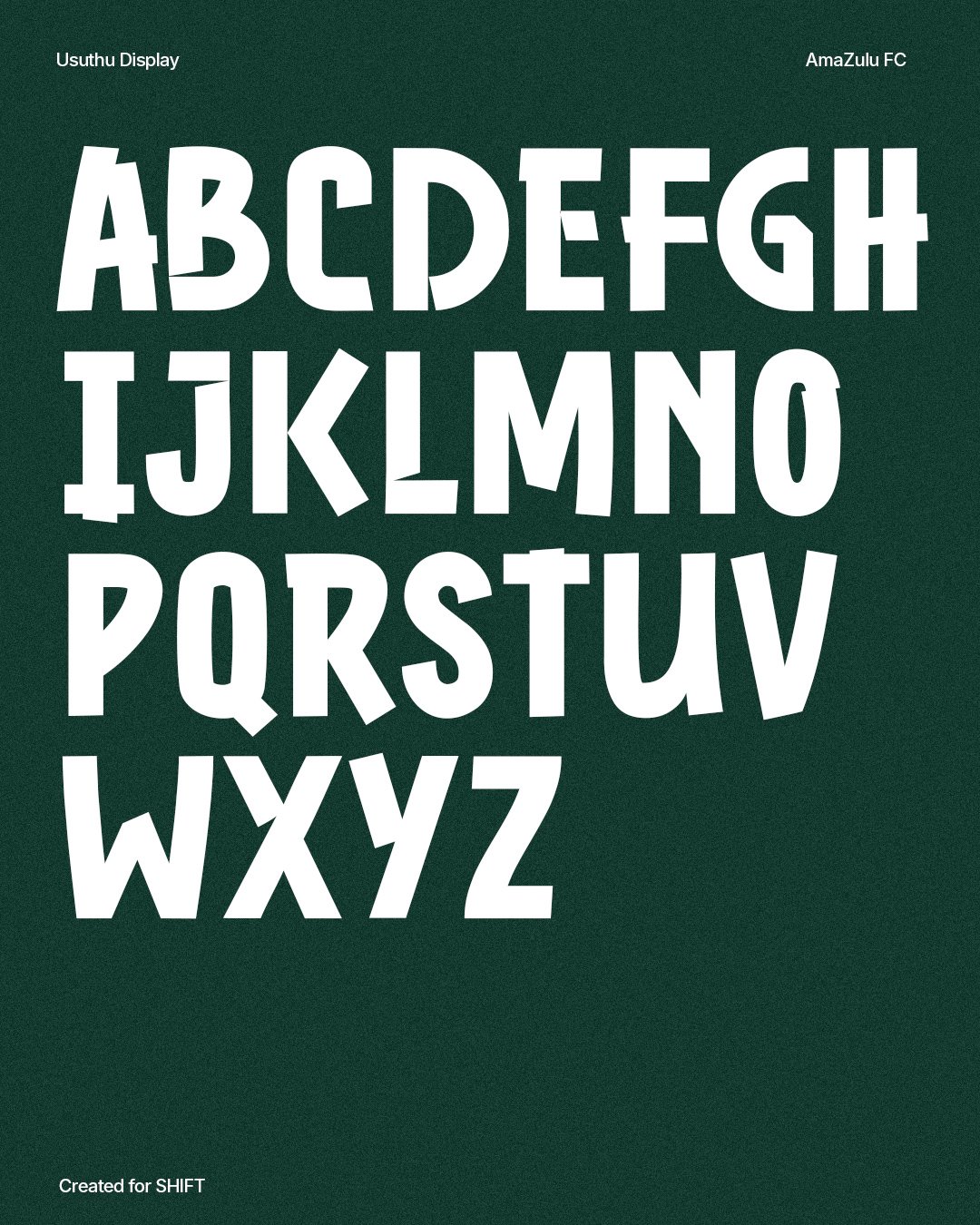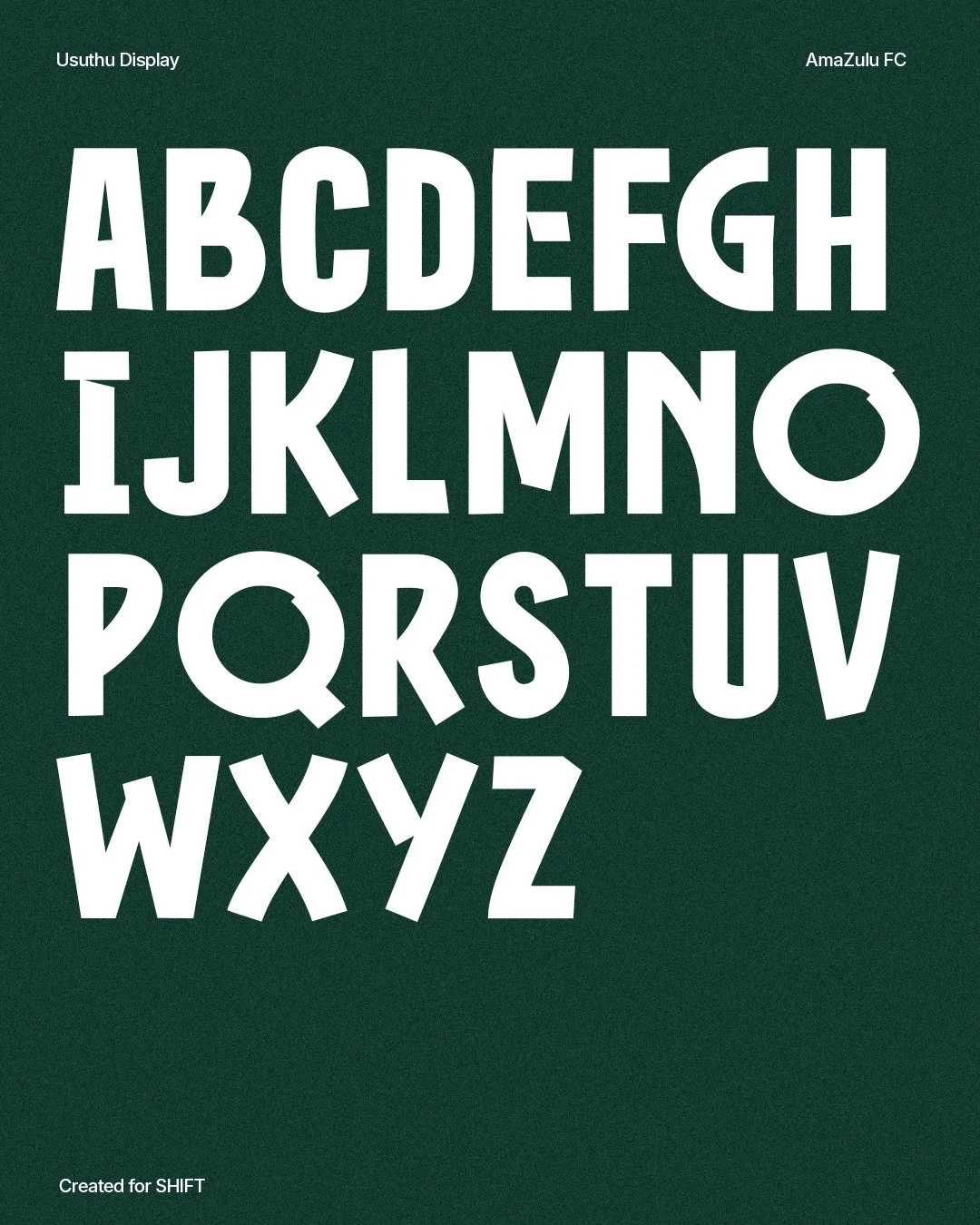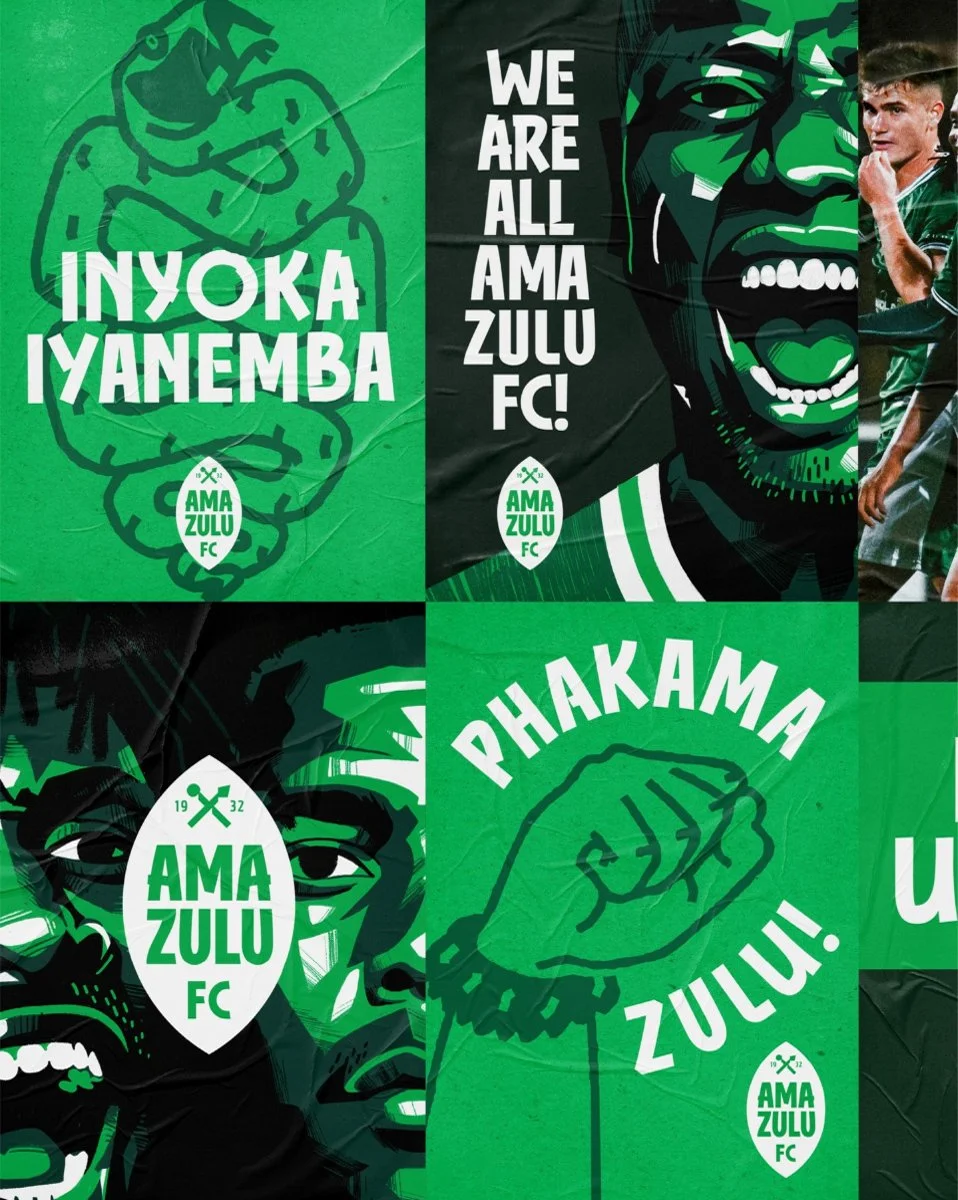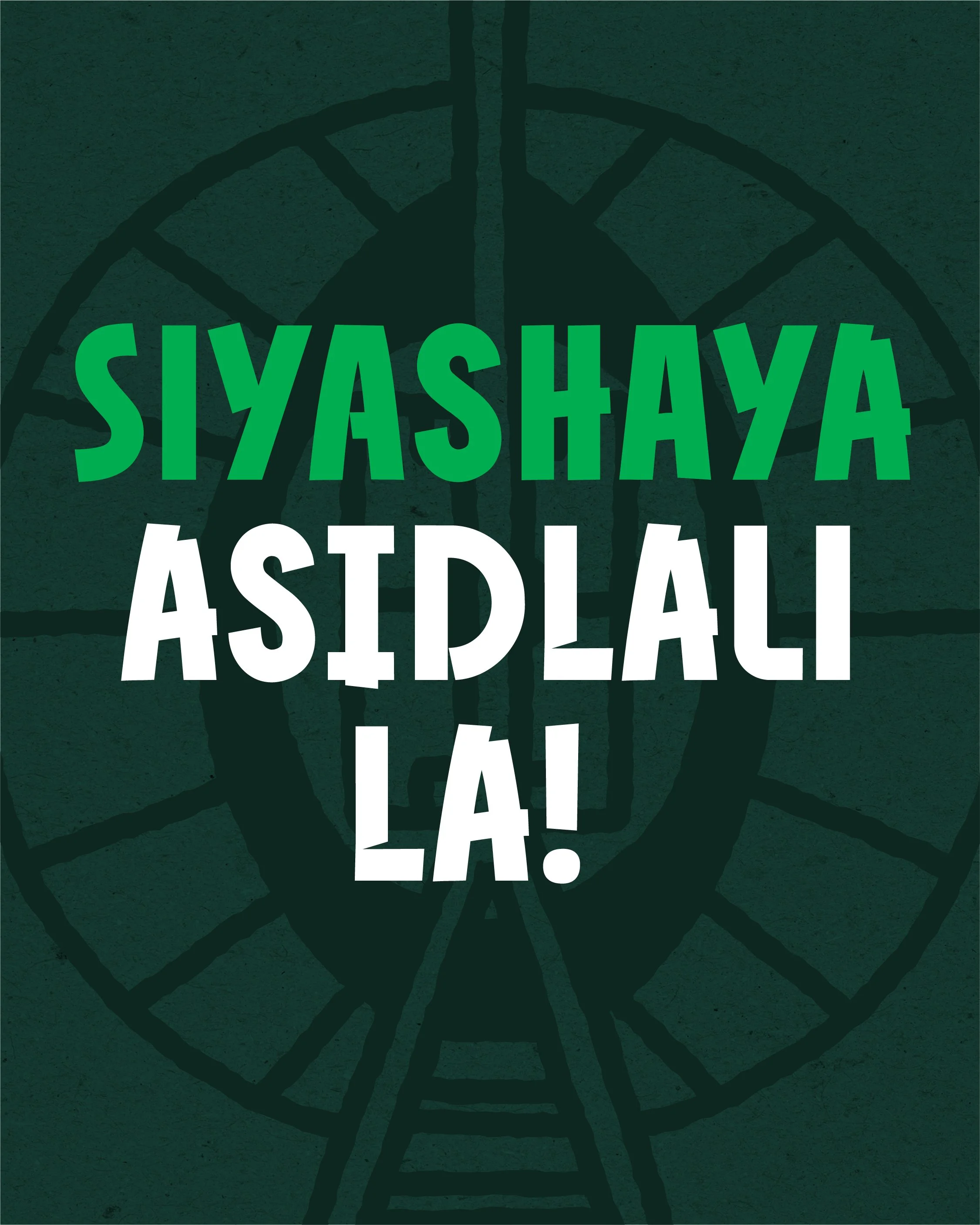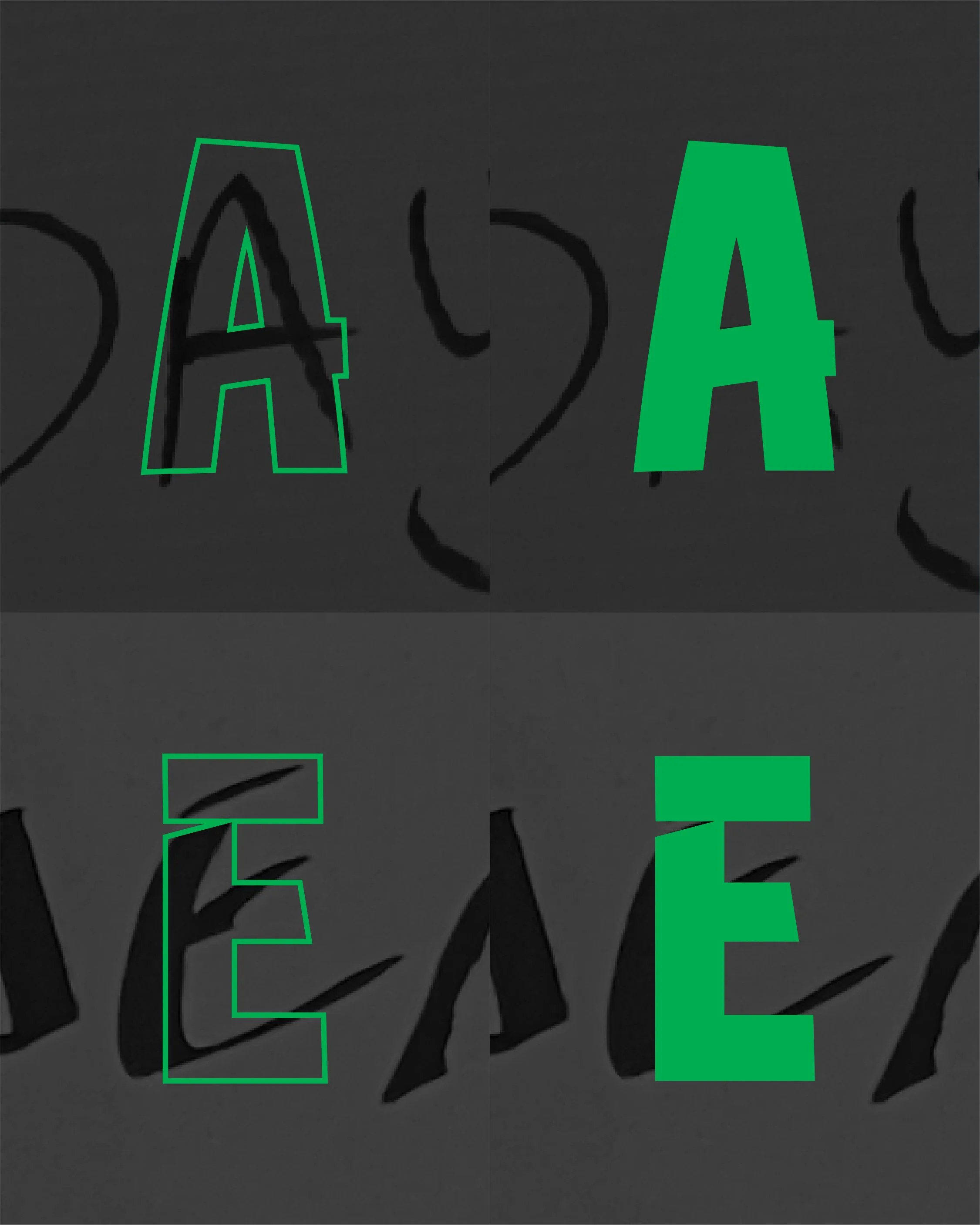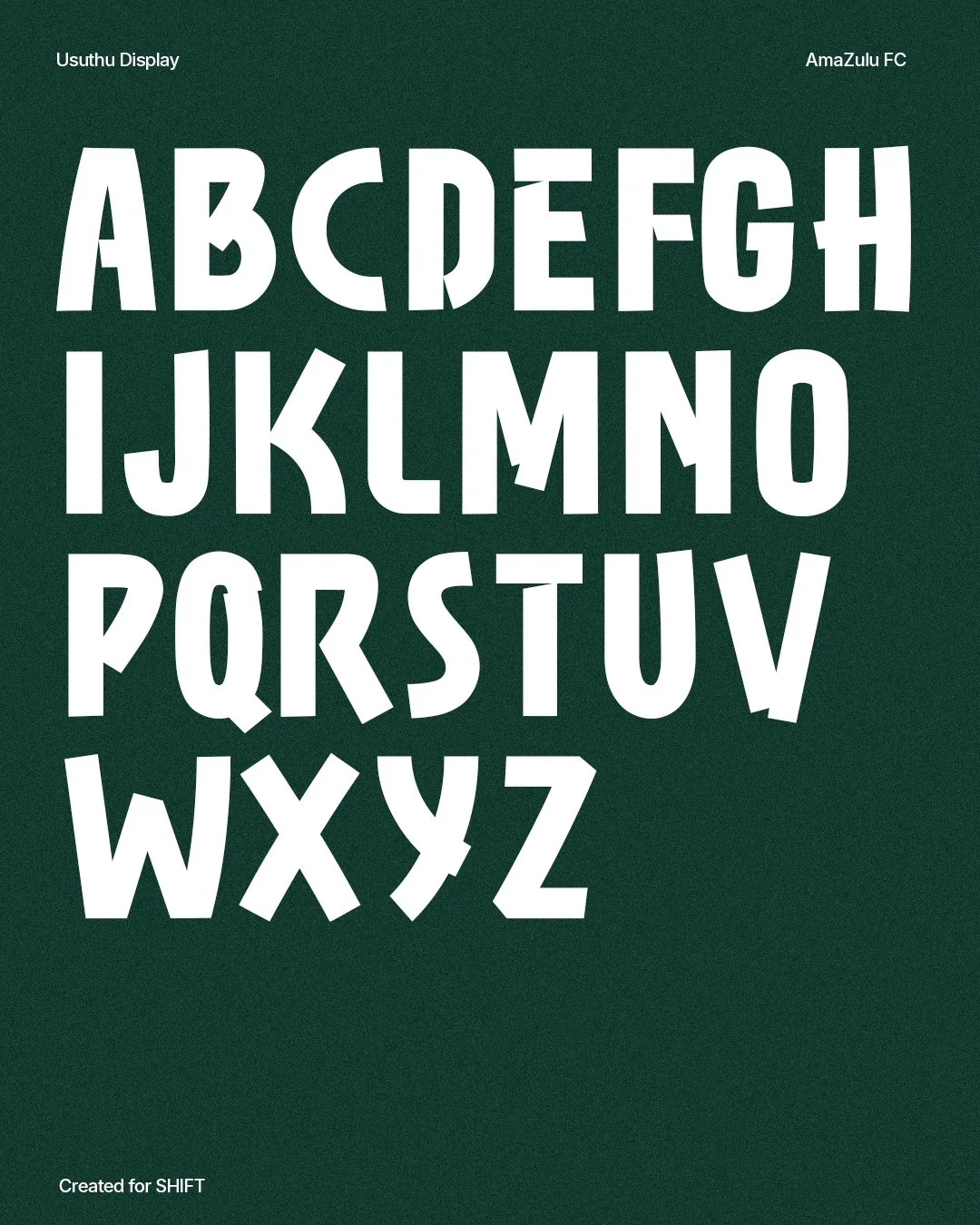
Custom font for AmaZulu FC
We partnered with Shift in South Africa, brand agency for AmaZulu FC one of South Africa’s biggest football clubs to create a new brand font for AmaZulu FC.
The concept was to create something that involved the fans of the club. With hundreds of pictures taken of placards written by fans. Having a range of fan written letters, a custom display font was created. This was not to be replicate handwriting but rather a font that is a bold, strong display font that is influenced by and used the handwritten nuances to create something unique that tied back to the most important thing, the Fans.
The finished typeface included two stylistic sets which allows for more customisation to play with alternate letters and bringing in more unique letterforms which link back to handwriting and its irregular forms.